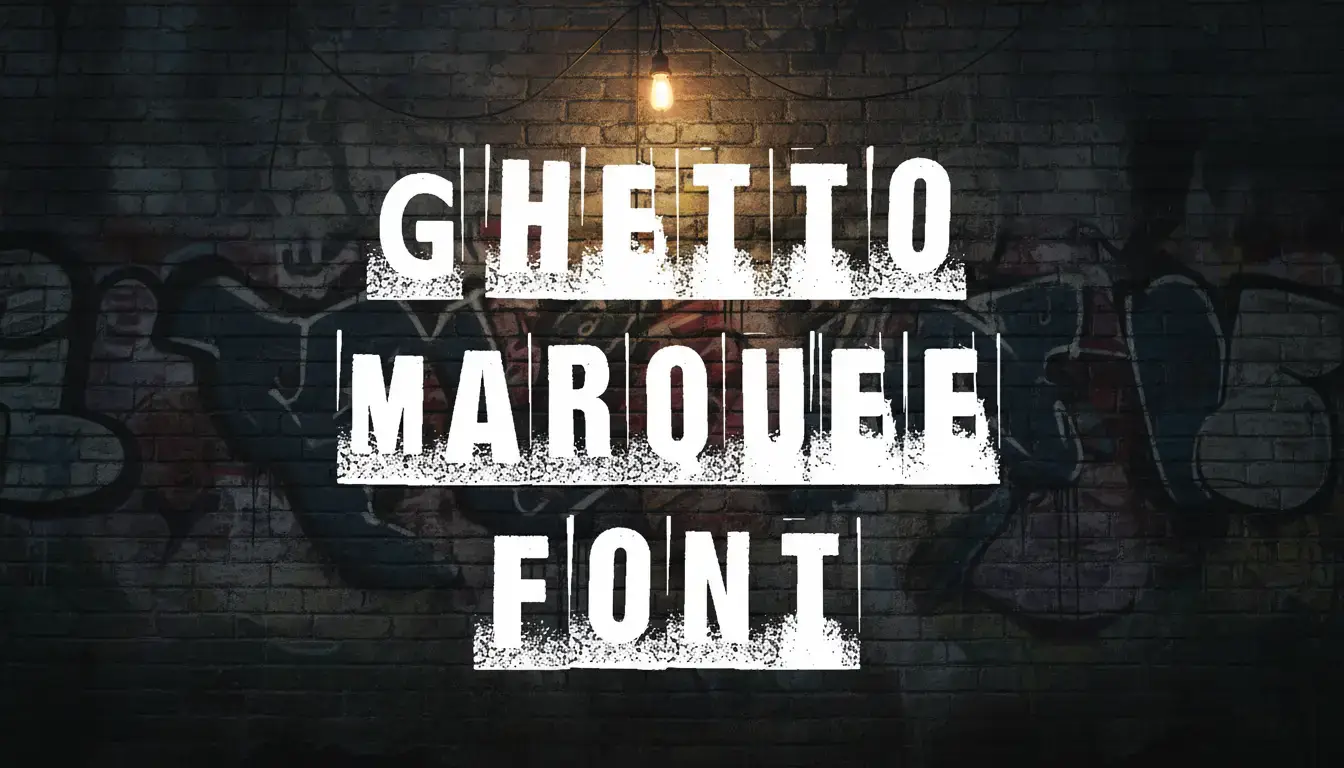
Ghetto Marquee Font
Ghetto Marquee is a fancy font made by Kirk Shelton. Bold and full of character, it's built to stand out rather than blend in. You can download it for free and test it with your own words in the preview above.
What You Can Type With Ghetto Marquee
You get every letter from A to Z in both cases and all the numbers from 0 to 9, which means Ghetto Marquee can handle full sentences, dates and prices. Everyday marks like &, !, ? and @ are there too. Thanks to its accented letters, it also works for Spanish, French, German, Portuguese and Italian, not just English.
Where Ghetto Marquee Works Best
Designers usually reach for fonts like Ghetto Marquee when they're making posters, logos and eye-catching headlines. Use it for one standout word or headline and let simpler fonts handle the rest.
Does Ghetto Marquee support accented letters?
Yes. Ghetto Marquee includes the accented letters needed for Spanish, French, German, Portuguese and Italian, so it works for more than just English.